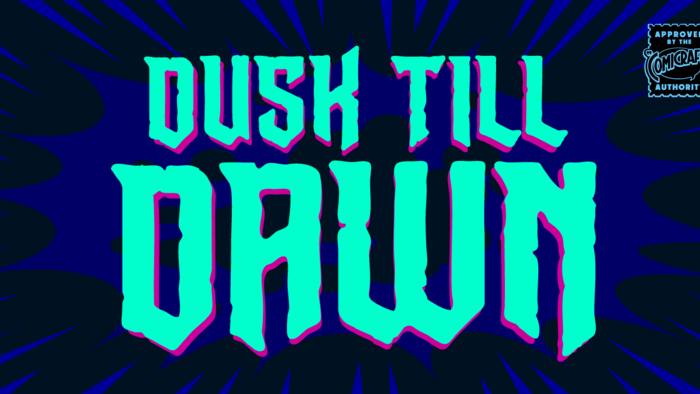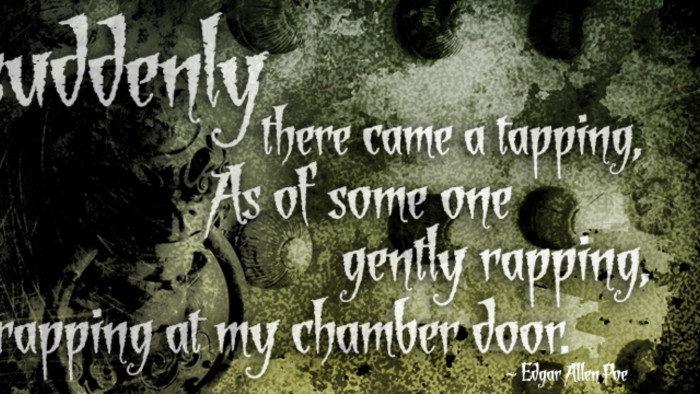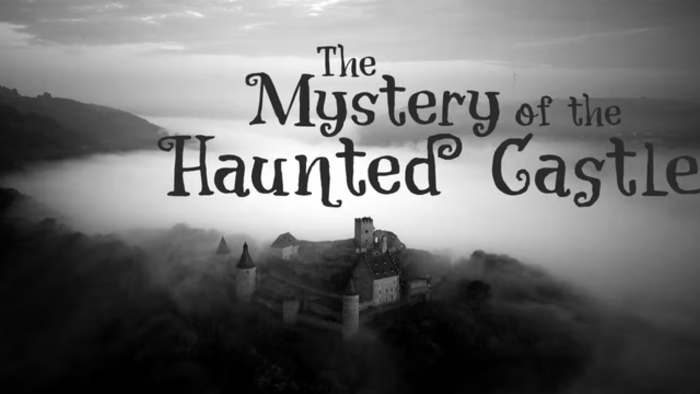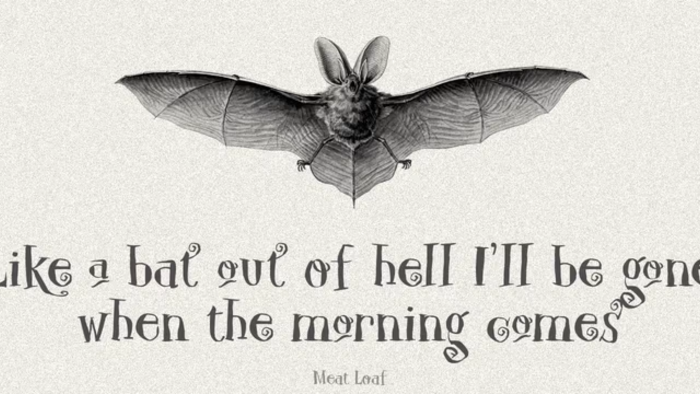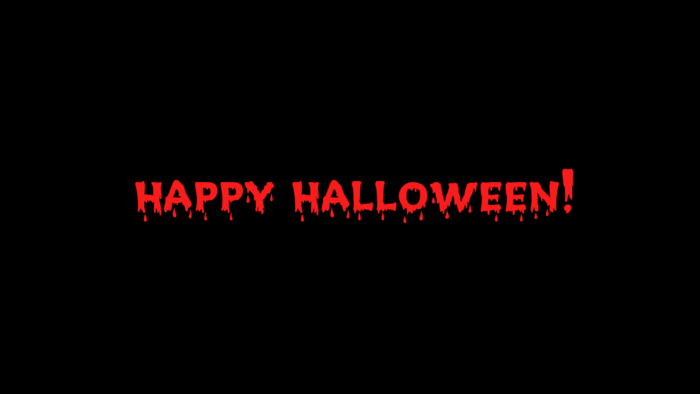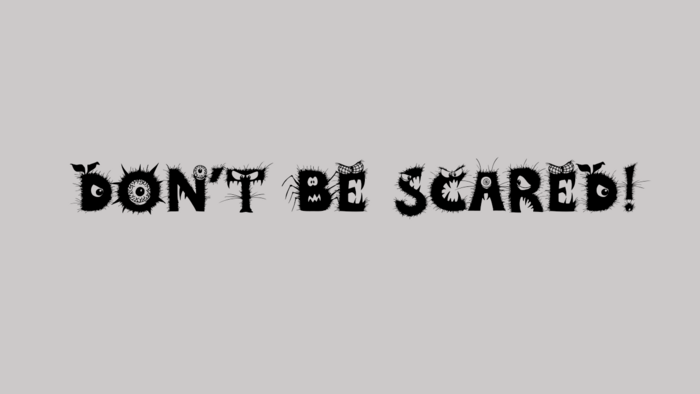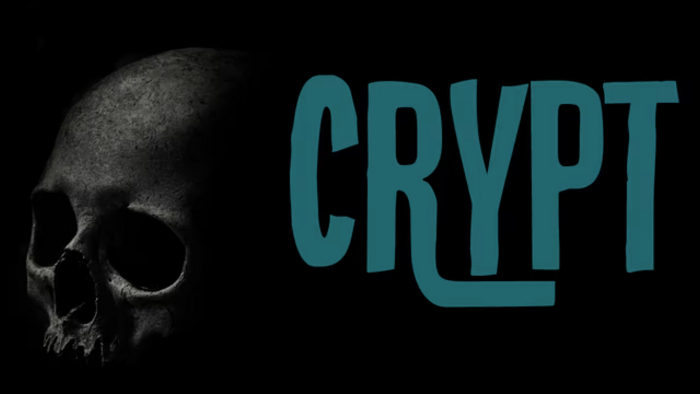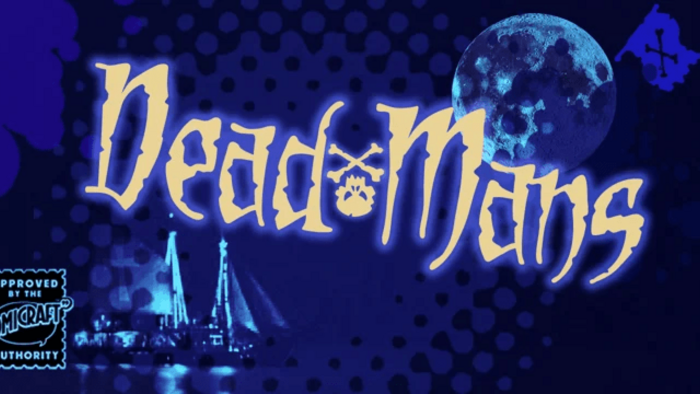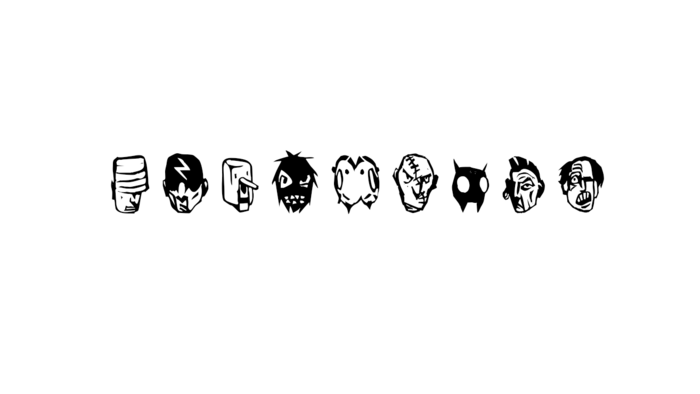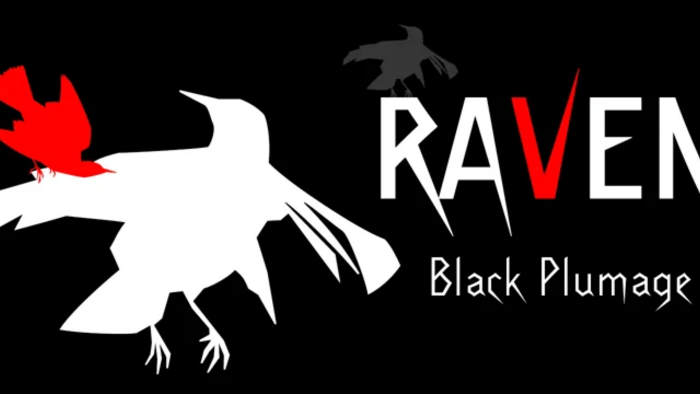
Spooky Fonts
With more than 250,000 fonts, Monotype Fonts has the world's most diverse font library - with options to meet every design need. In this collection, we've pulled together our favorite scary fonts - for seasonal designs, horror movies, ghost stories, and more.
Spooky
The mysterious Spooky, an alphabet to frighten even the bravest, was created by British designer Timothy Donaldson. The figures line themselves up, irregular and with uneven outer contours, and conjure up thoughts of ghosts, bats, vampires and darkness. Spooky is the ideal font for ghost stories with happy endings, a parody on horror and romance. As an added bonus, Spooky includes illustrations, from black cat to spider to witch - everything needed to earn its name.
GrindelGrove
GrindelGrove is a spooky display face that suggests deep dark woods, long-lost treasure maps, and cautionary fables. Its bark-like texture and v-shaped letterforms lend an air of eerie mystery, a perfect complement to scary novels, haunted houses, and strange happenings. The font’s dramatic, edgy character is best suited to headlines and short punchy statements. While at first glance, GrindelGrove appears to be only for Halloween and similar scary purposes, the typeface is actually quite adaptable; in fact, the designer originally created the letterforms for a native plant garden brochure.
Trick or Treat
Bats, Cats, Ghosts and Ghouls, Zombies, Witches and Spiders galore. Cackling to herself alone in her coven, the Scary Godmother, Lilou, threw eyes of newts and wings of bats into her cauldron and sent her unearthly children down the street with mischief in mind. Brought to us by Comicraft, these Halloween Dingbats have every kind of Spooky Monster she could imagine, and a few more besides. With both upper and lowercase characters that are easy to keep track of (“g” for ghost), this font gives designers all the images they need for their fun, scary designs. Keep your porch light on!
Blackminster
Blackminster is a Gothic font, inspired by a handwritten set of letters (created by Harry Lawrence Gage) that the designer found in a 1916 book about lettering. The family comes with many diacritics and an alternate swashy g and y. Blackminster works well on anything that requires a Gothic look, including Gothic fiction books, metal album covers, skateboards, and downhill mountain bikes.
Creepy Crawly
If you’re looking for a frightening font, Comicraft’s Creepy Crawly won’t disappoint. There are worms in the earth, hairy bugs under the bed, and strange bloodshot eyeballs peering at you from out of the closet. The Creepy Crawly font is perfect for scaring away Trick-or-Treaters.
Dusk Till Dawn
Perfect for stories about vampires, cemeteries and anything else Halloween-inspired, Dusk Till Dawn offers four fonts (Risen, RisenUp, Buried & BuriedDeep) with upper and lowercase characters and Western European international characters.
Carpe Noctem
Carpe Noctem (Latin for ‘Seize The Night’), was created by accident when working on a request to make a lower case for the foundry’s existing Closet Skeleton font. If you’re in need of a slightly scary fairytale font, complete with angled edges, swirly bits, a couple of alternate - even more curly - glyphs and an alternate medieval ampersand, then Hanoded’s Carpe Noctem is your typeface!
Linotype Freak Cabinet
Linotype’s Freak Cabinet consists only of symbols – all of them strange, frightening faces.
Sepian
Laura Worthington has put a devilish twist on her usual flowing scripts. Sepian evokes an air of vampires, death, and old evil (“med-evil”) castles. The font is a wickedly fresh update on the centuries-old textura blackletter form. Use its razor-sharp “gothic” face and darkly cool character to create tattoos, horror-movie posters, or scary video game text.
Crypt
Crypt, created by Hanoded, is a seemingly lovely font that will look good in just about any design. But if you take a closer look, it is actually quite scary - it has jagged edges and a sinister undertone, making the letters jump from your computer and eat you alive! Use Crypt for book covers, posters, product packaging and magazines - the result will be quite haunting. Needless to say, Crypt comes with an otherworldly amount of diacritics.
Wolfsblood
Wolfsblood, designed by Jim Ford and published by Monotype, is a display face adapted from hand-lettered logos spawned by punk rock bands. The style can be traced back further to Hollywood and the explosion of low-budget exploitation, horror and sci-fi films, which also had an influence on punk rock. Wolfsblood captures this bizarre dark-spirited lettering. The Wolfsblood font has an expanded character set with ghoulish borders, bats (perfect for Halloween!), goblins, and contextual ligatures programmed to give the typeface a random appearance by default. Wolfsblood is great for logos, posters, headlines and short bits of text, and will add a fun, aggressive energy to your dark and other-worldly creations.
After Nightfall
After Nightfall, from Hanoded, is a handmade fairytale font. It was called Bunting Nook first (after a spooky story of a black dog that haunts a town in Britain), but was later renamed to a more illustrative name, After Nightfall. This font comes with some lovely swashes, which should be used sparingly.
Dead Mans
Shiver me Timbers and Splice me Mainbrace! There’s strange goings on in Smugglers’ Cove… A gathering of thieves, brigands, piratefolk and back-stabbing blackguards the likes of which have not been seen since the days of Redbeard! Someone’ll be swinging from the yardarm or walking the plank if the treasure doesn’t turn up soon! Comicraft’s Dead Mans font, offered in two styles, is ideal for storytelling of old pirate tales and dark stormy nights.